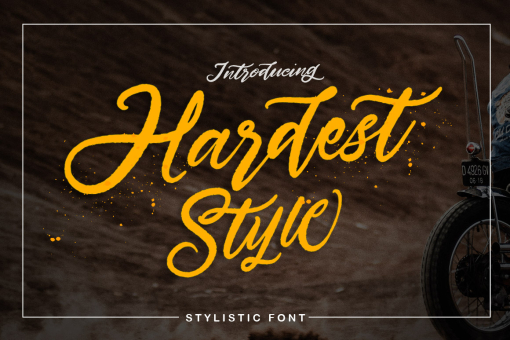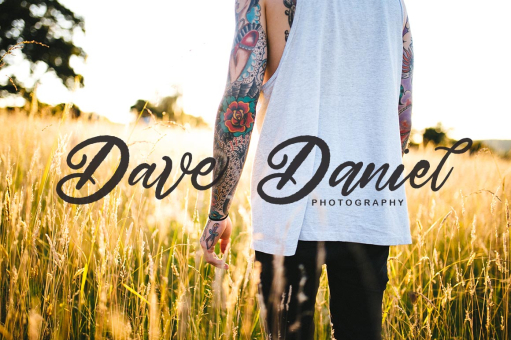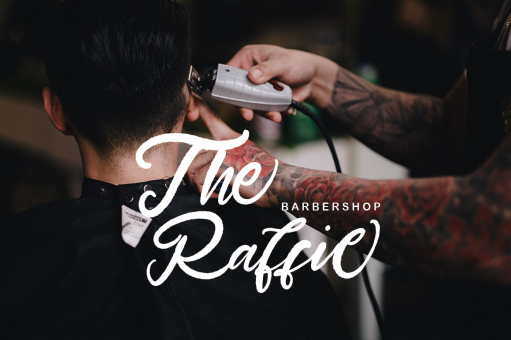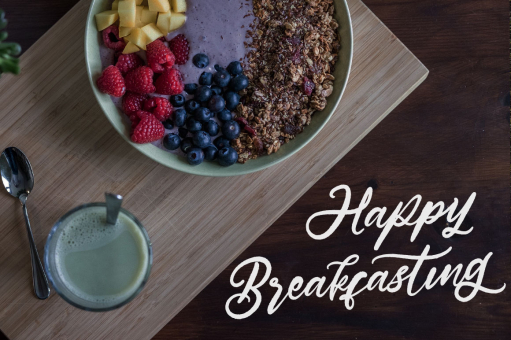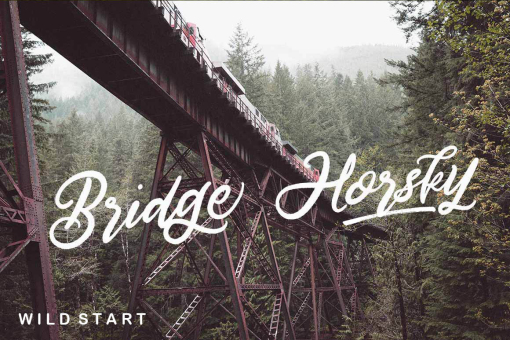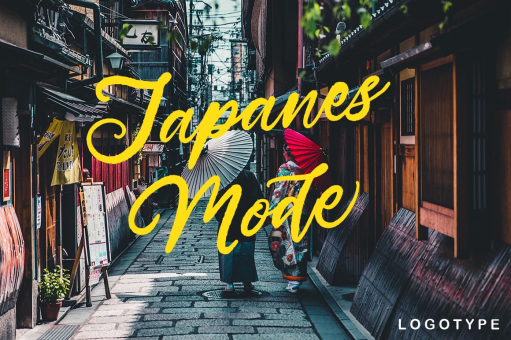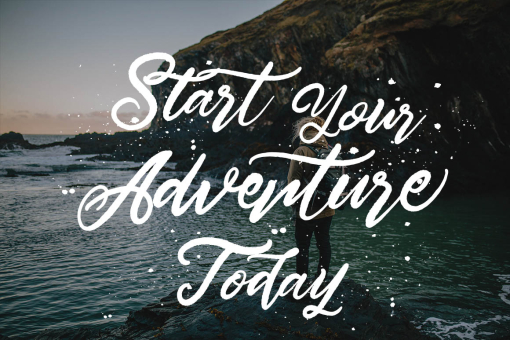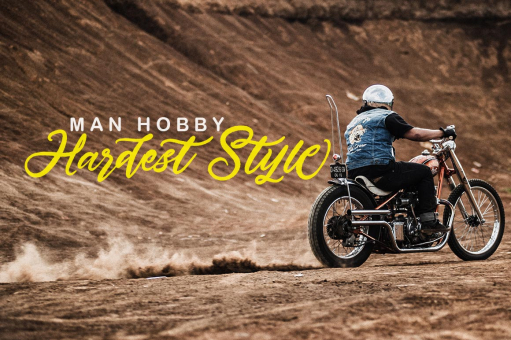
Hardest Style
Hardest Style is is a handmade brushes stylist designed to combine perfectly and allow you to create stunning hand-lettering quickly and easily.
Hardest Style Comes with upper and lowercase characters, large set of punctuation glyphs, numerals, and supports international languages. Stylistic alternates for several key lower case characters are also available, accessible in the Adobe Illustrator Glyphs panel, or under Stylistic Alternates in the Adobe Photoshop OpenType menu.
Features :
Basic Latin A-Z and a-z
Alternative Stylistic
Numbers
Symbols
Stylistic Set
Ligature
Multilanguage Support